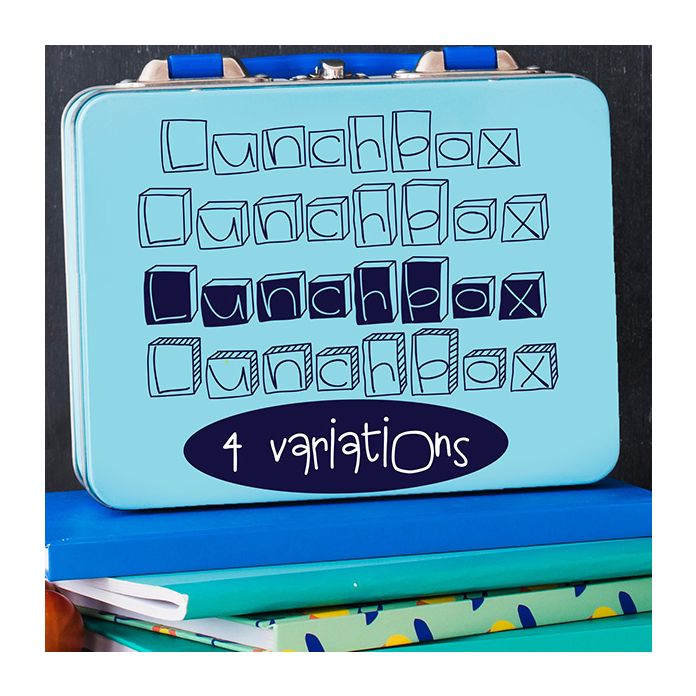
This hand-crafted font has four versions of the popular lunchbox font. Hand-crafted fonts can be either formal or informal, and they can be used for a variety of purposes. Some of the characteristics of handwritten fonts include: The letters are not perfectly uniform in size or shape. There may be slight variations in the spacing between letters and words. The font may have a "wiggly" or "squiggly" appearance. The font may be difficult to read at small sizes. Handwritten fonts can be a great way to add a casual touch to your designs. They can also be used to create a sense of nostalgia or whimsy. However, it is important to choose a handwritten font that is appropriate for the project you are working on. A formal handwritten font may not be appropriate for a casual invitation, while an informal handwritten font may not be appropriate for a corporate document.